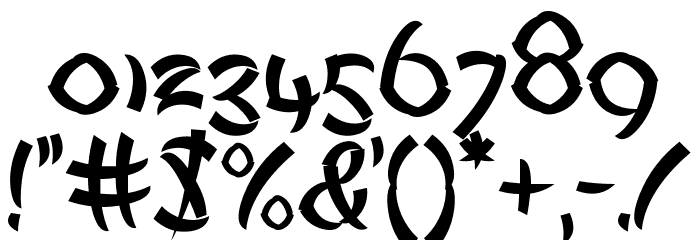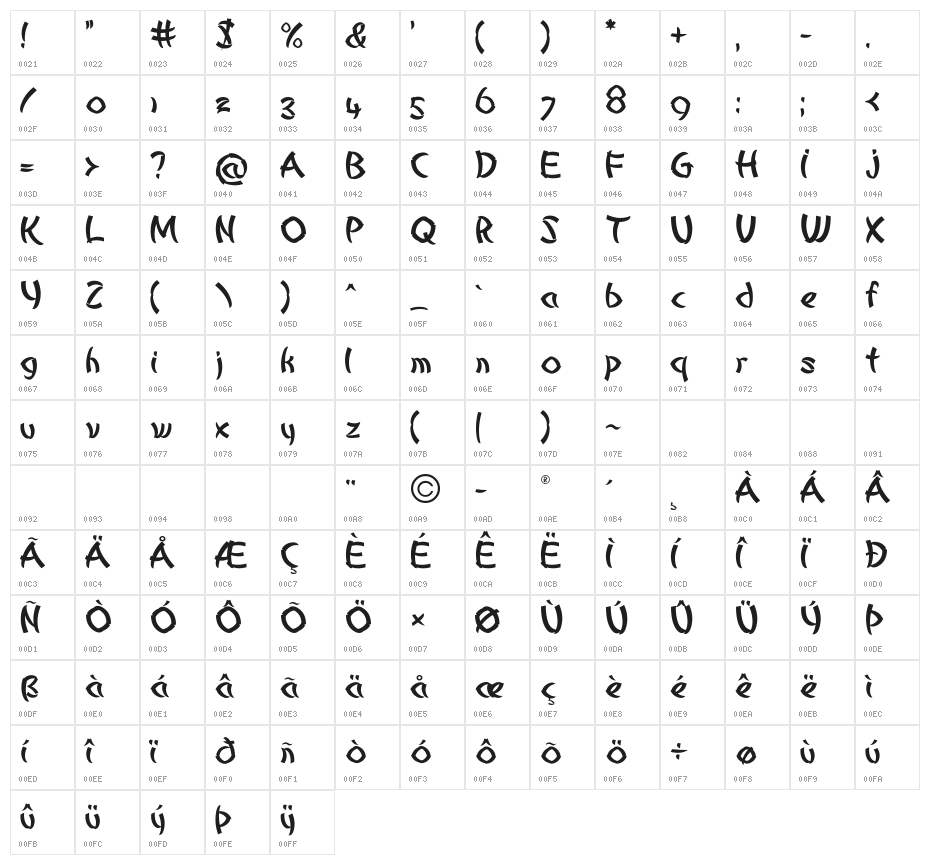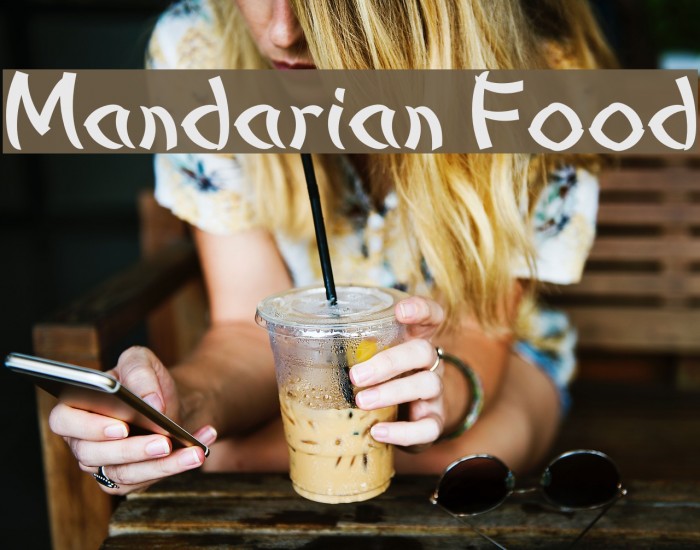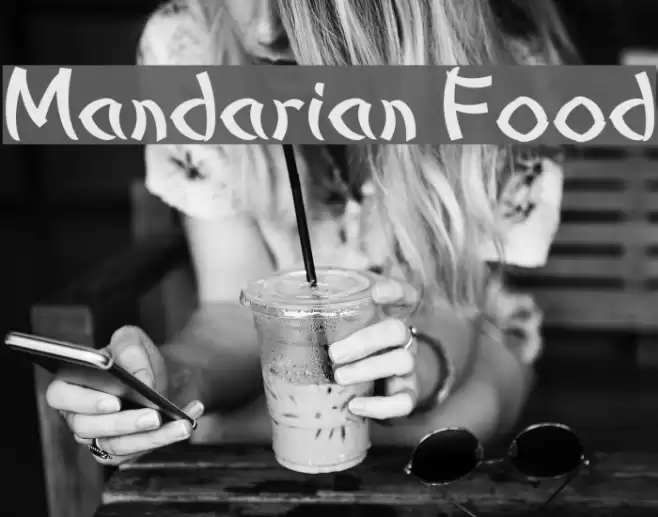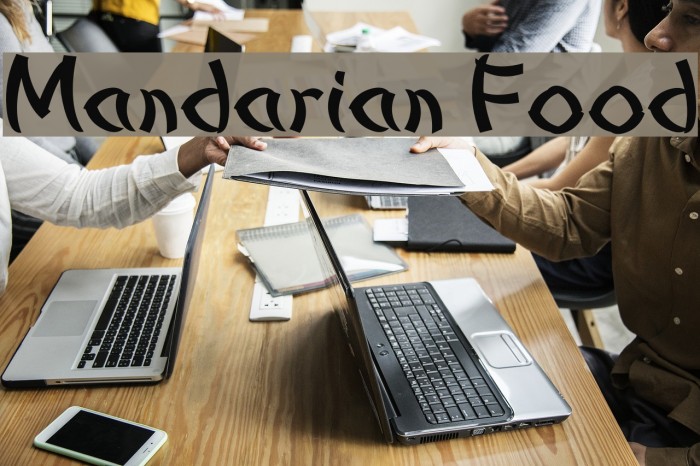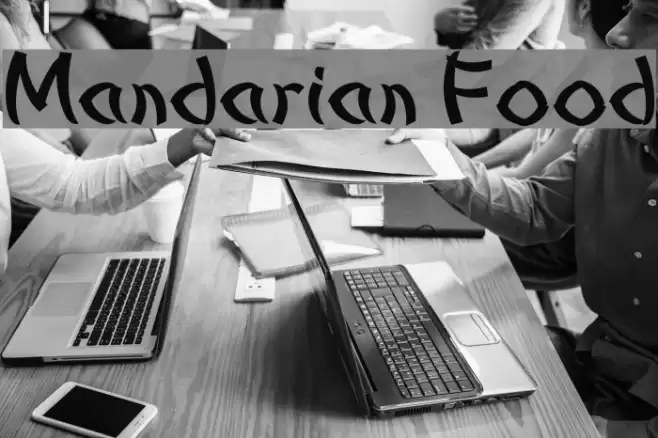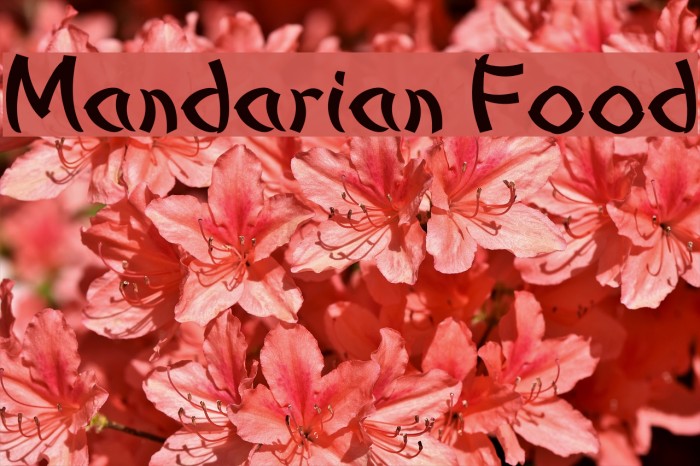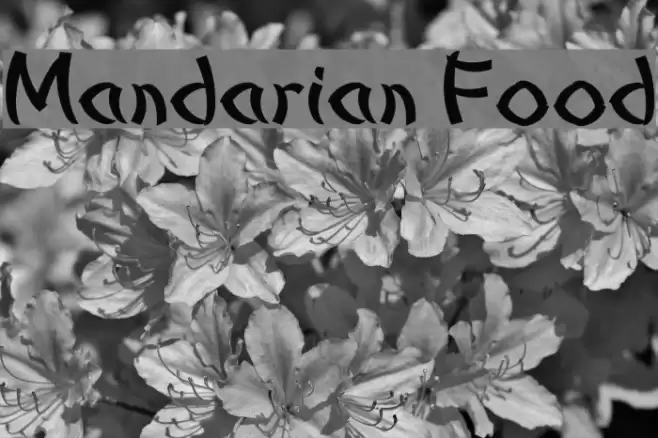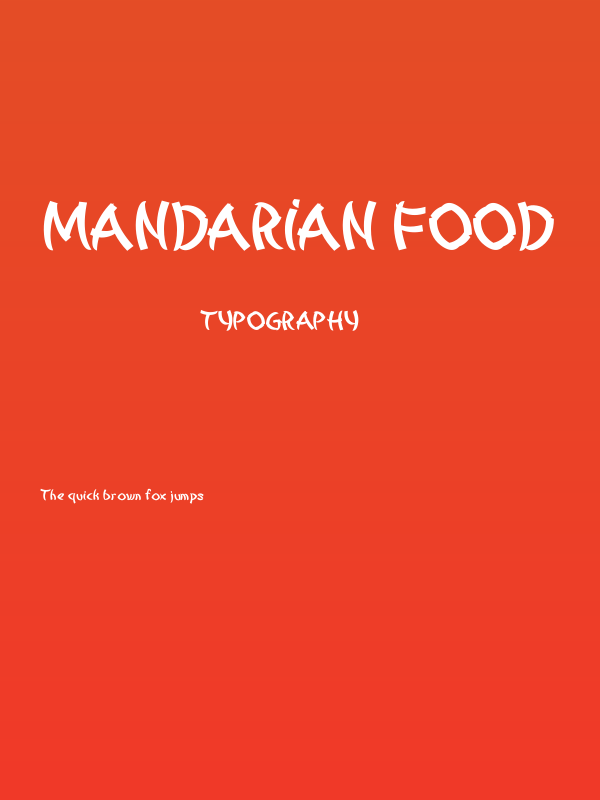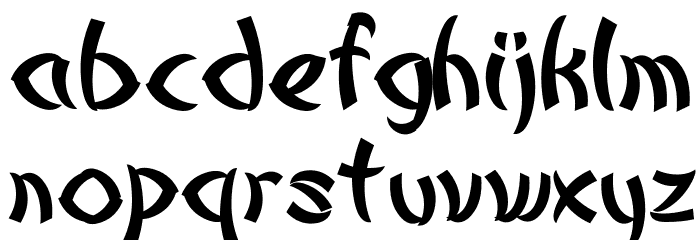
Mandarian Food Font
Mandarian Food Description
This font features a bold and dynamic style with a strong presence. The characters are crafted with a brush-like effect, giving them a hand-painted appearance. The strokes are thick and varied, creating a sense of movement and energy. Each letter has a unique flair, with curves and angles that add to the overall artistic feel. The uppercase and lowercase letters maintain a consistent style, while the numbers and special characters complement the set with similar design elements. This font is visually striking and commands attention.